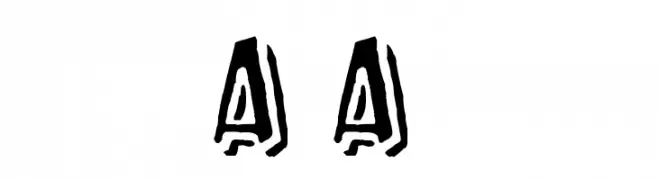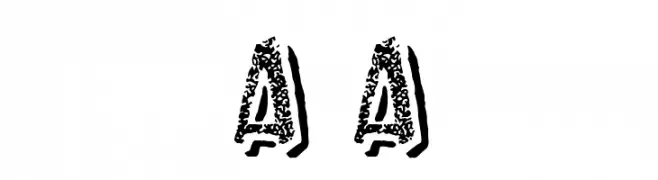
A playful, hand-drawn 3D effect font with bold outlines and a whimsical style.
A playful, hand-drawn font with a bold, sketch-like appearance and 3D effect.